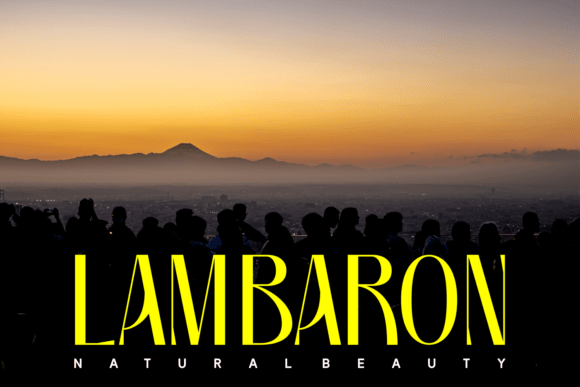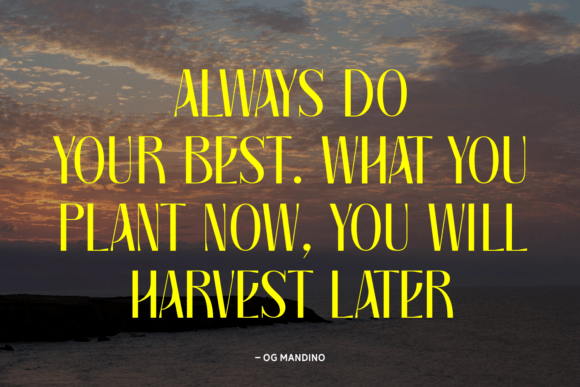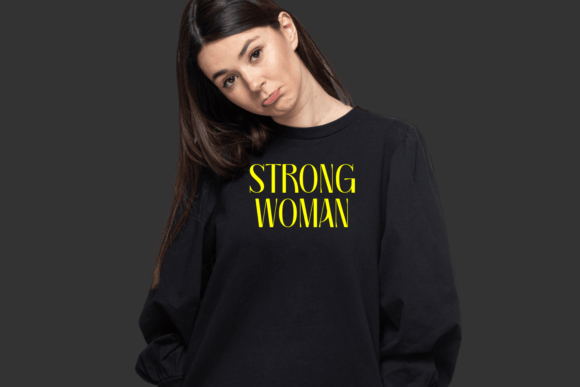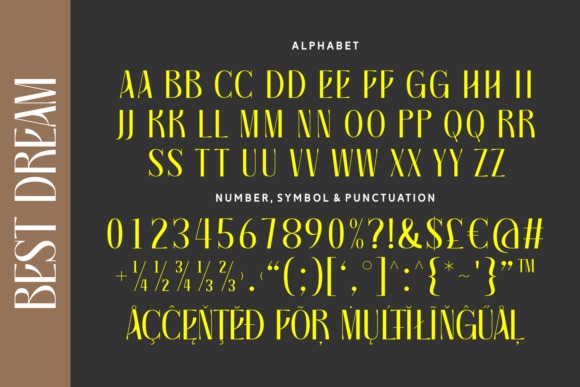
Introduction to Best Dream Font
Elevate your visual storytelling with Best Dream, an avant-garde sans-serif font designed for high-impact cinematic presence.
Characterized by its dramatic verticality and distinctive โtaperedโ apertures, this typeface reimagines modern minimalism through a lyrical, expressive lens Create a hauntingly beautiful presence for movie credits, theatrical flyers, and game titles.